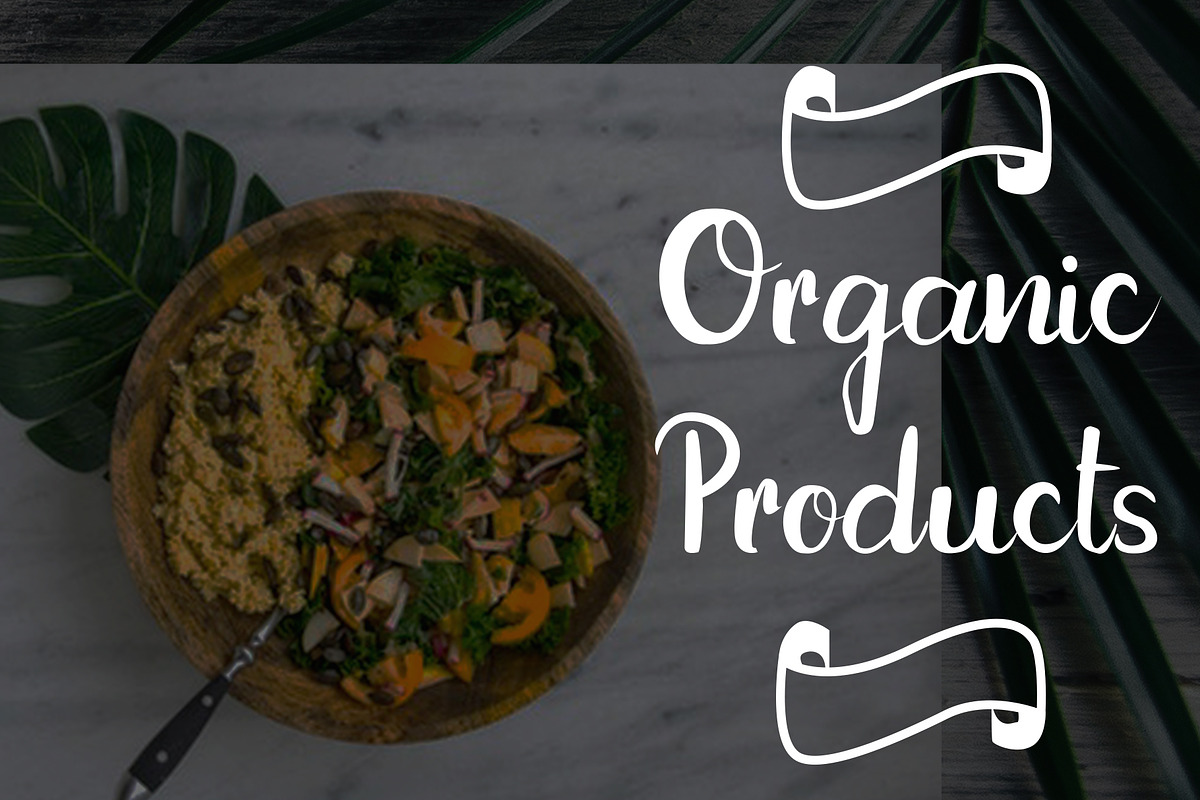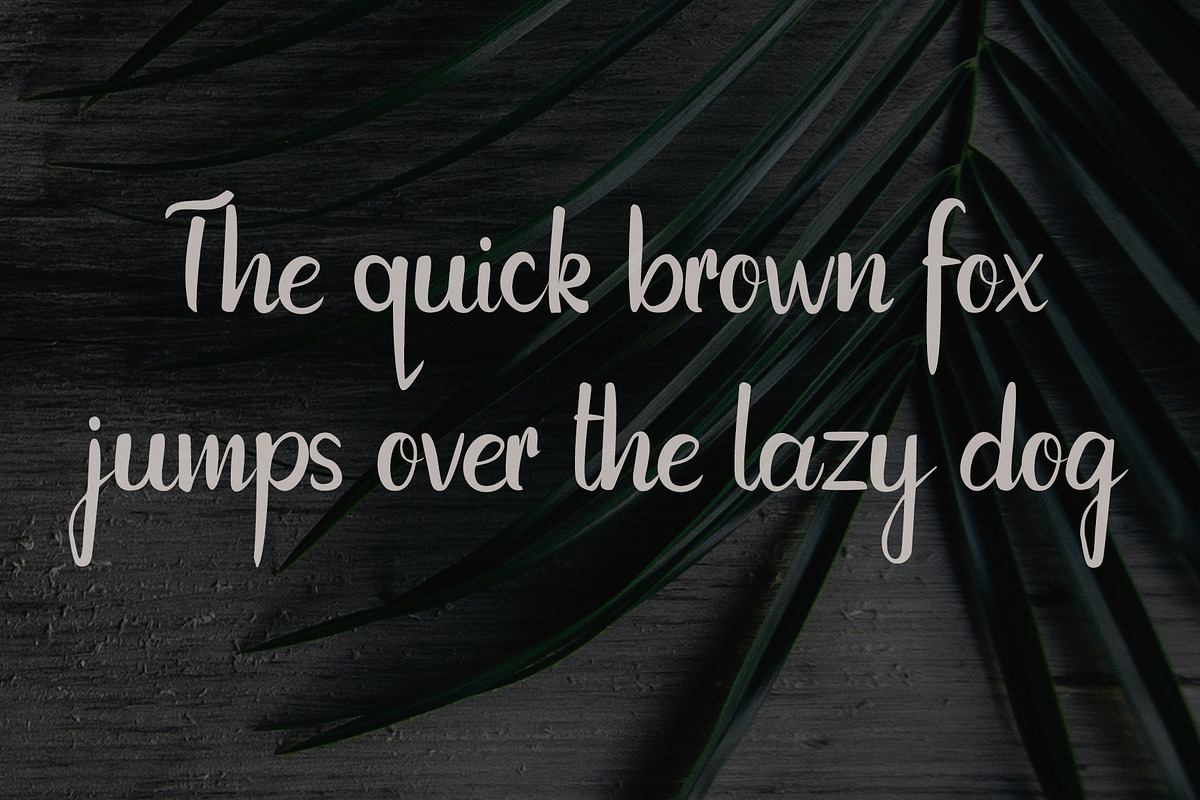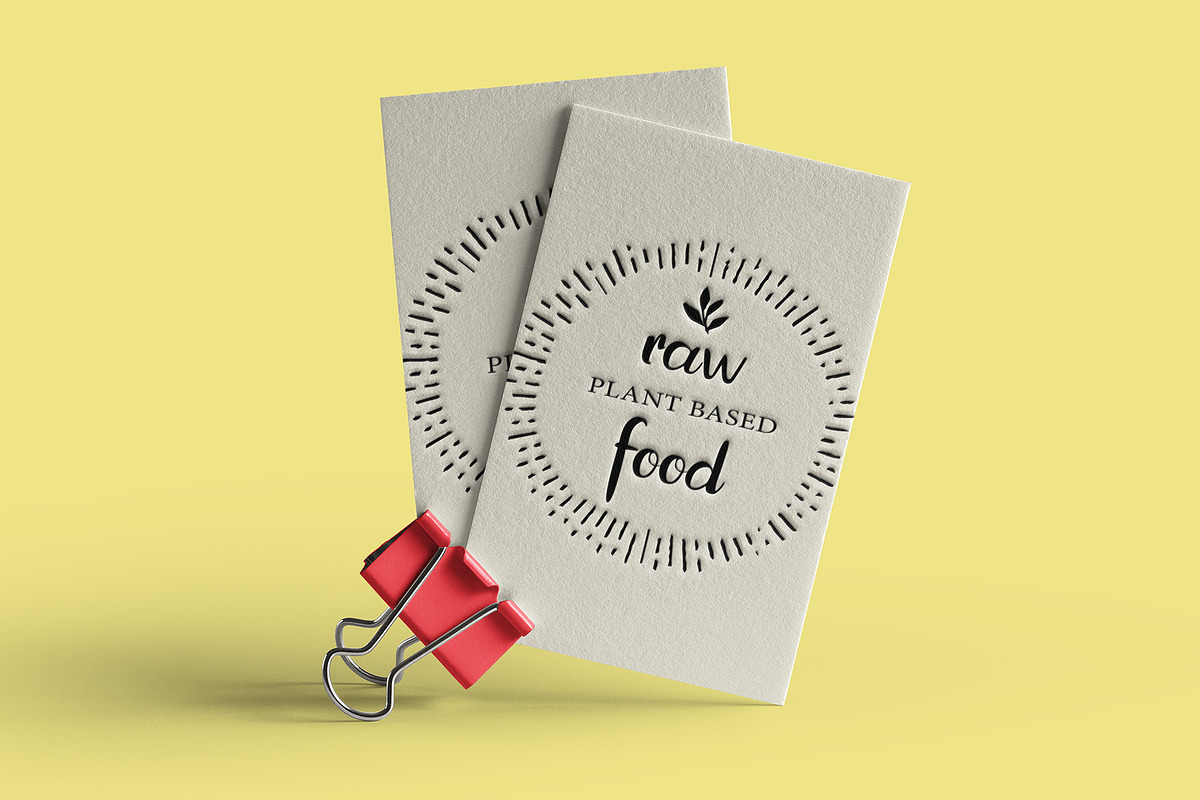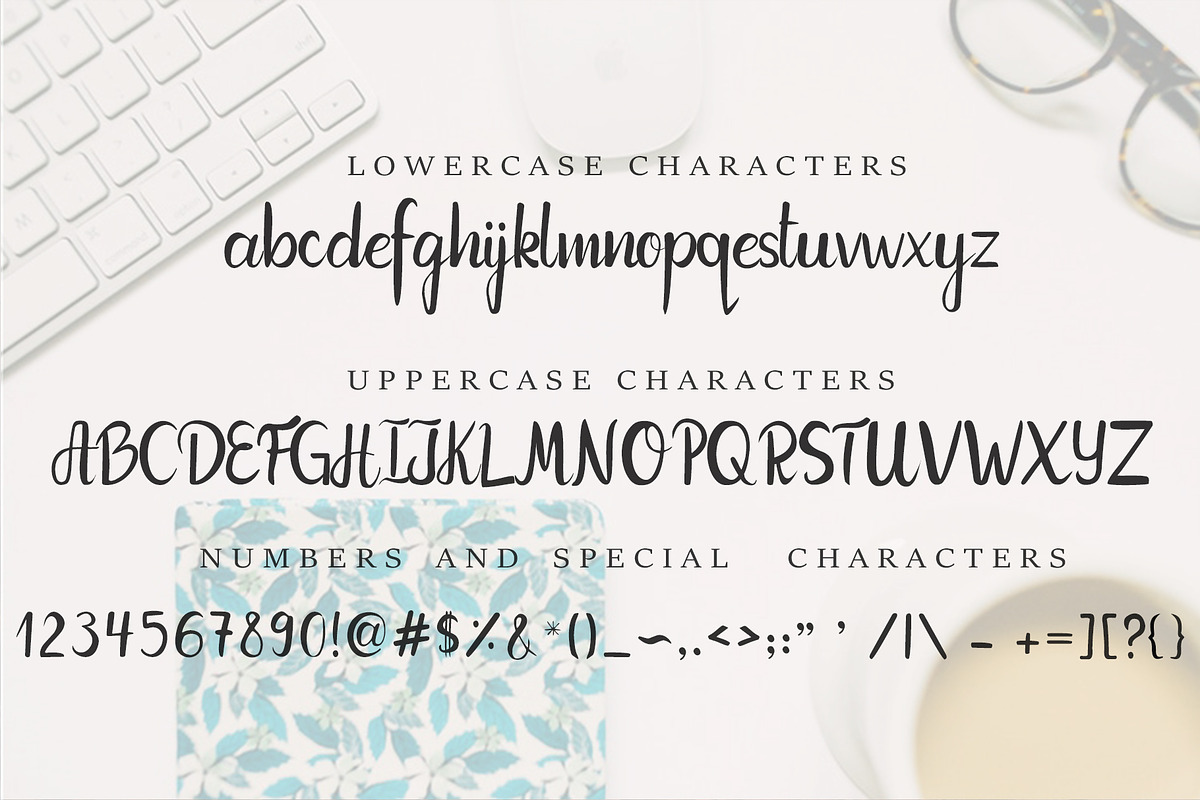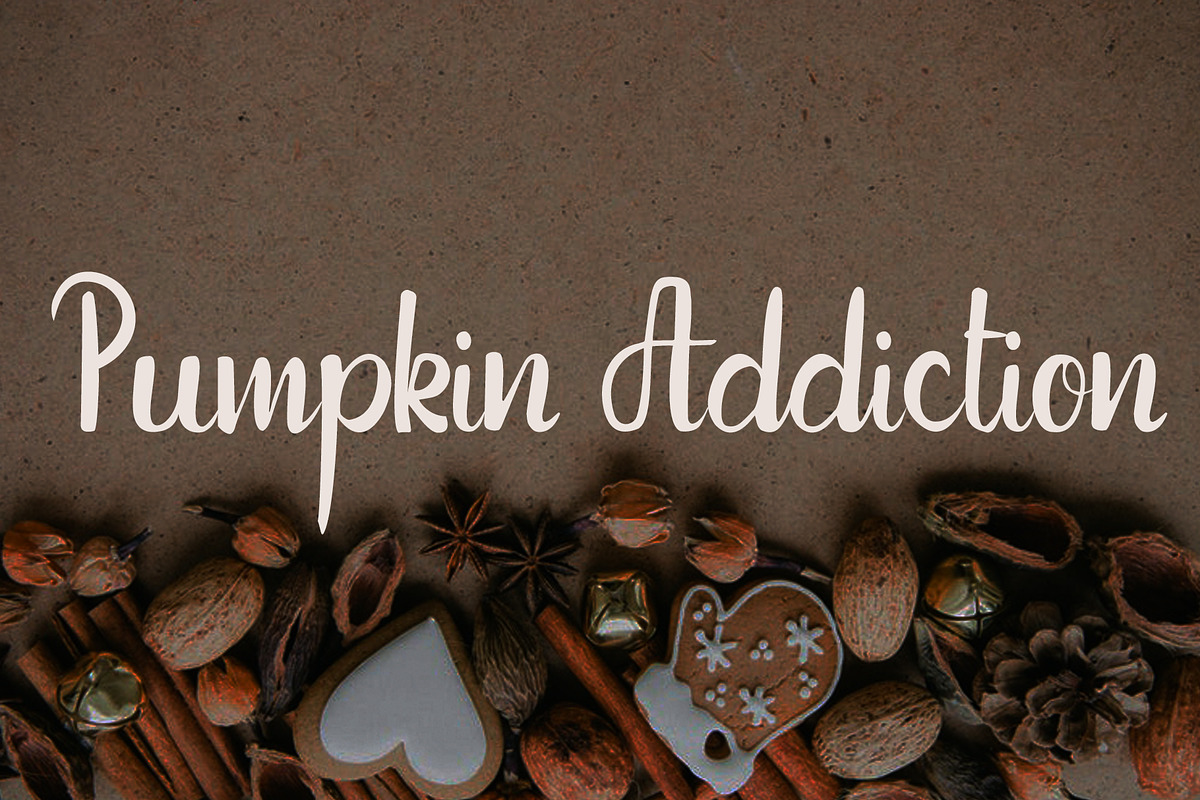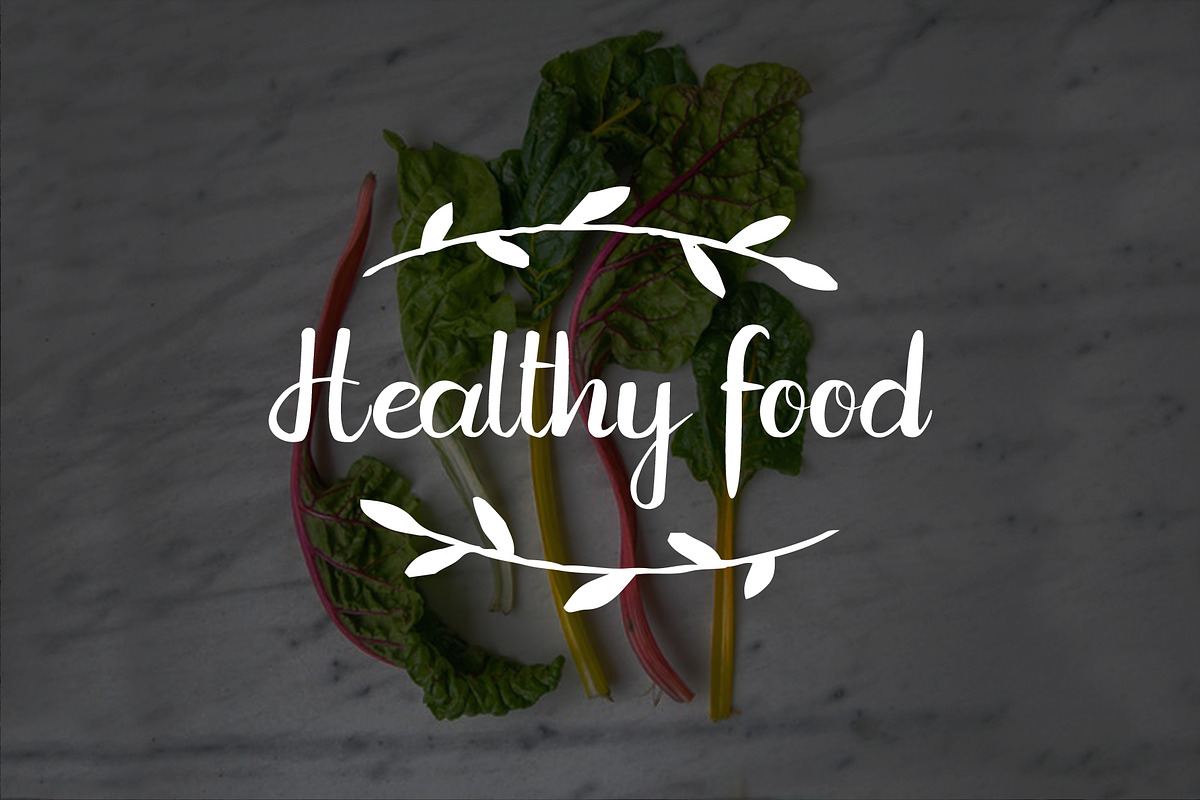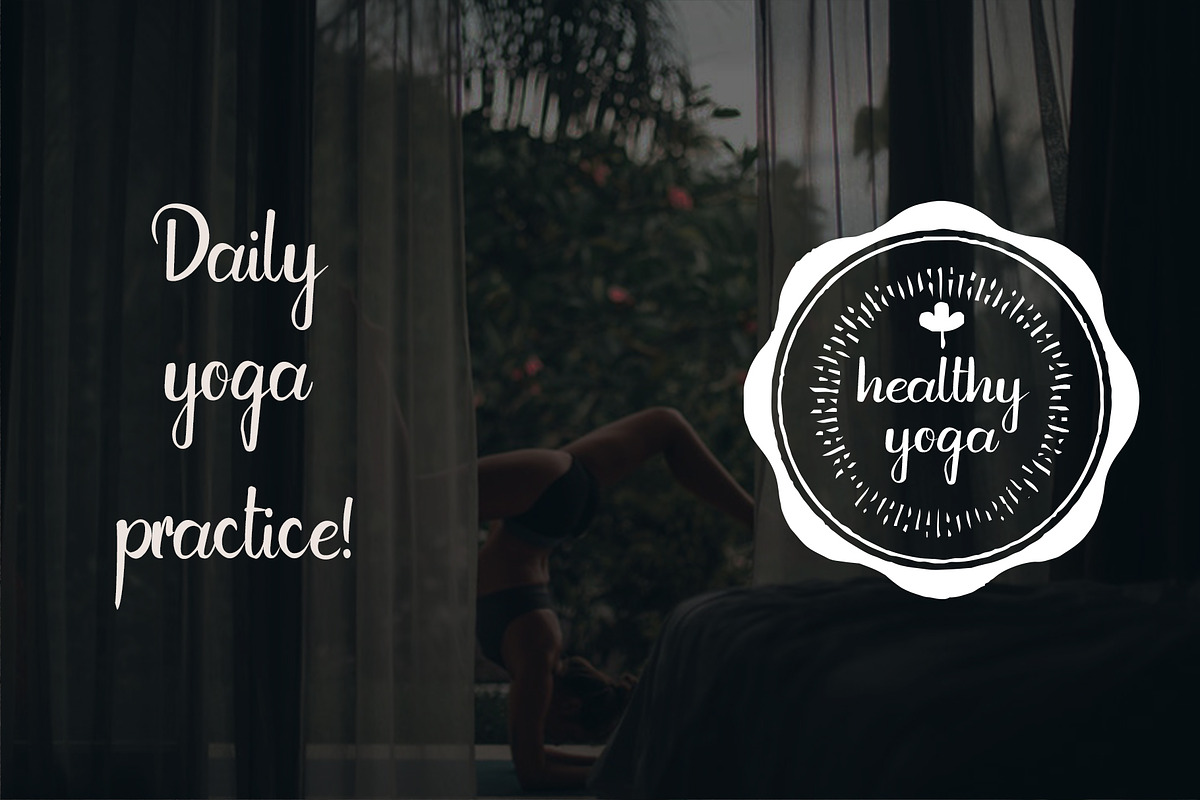
Pumpkin Font + FREE floral patterns
Stylish, creative, and casual new handwriting font script with some good extras!
Pumpkin Handwritten Font offers beautiful typographic harmony for a diversity of design projects, including:
branding & logo design
photo/photography overlays
Pumpkin Handwritten Font - A handwritten script font containing upper & lowercase characters, numerals and a large range of punctuation